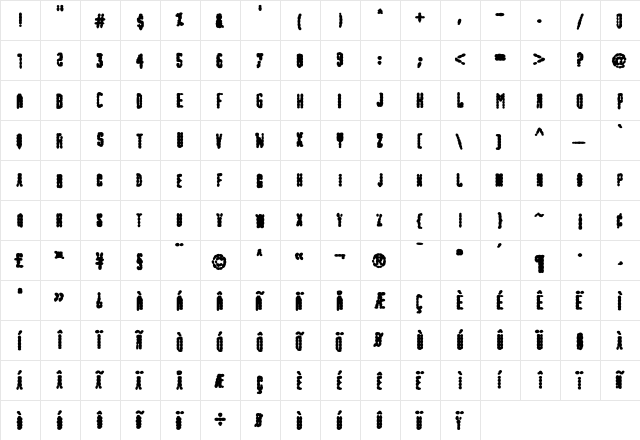
Atlanta ExtraBold Font Preview
Atlanta ExtraBold
Atlanta ExtraBold Font Details
Design Context for Atlanta Typeface
Atlanta is a composed and adaptable typeface that performs quietly and consistently across a wide range of design contexts. The heavy weight commands attention and anchors typographic hierarchies.